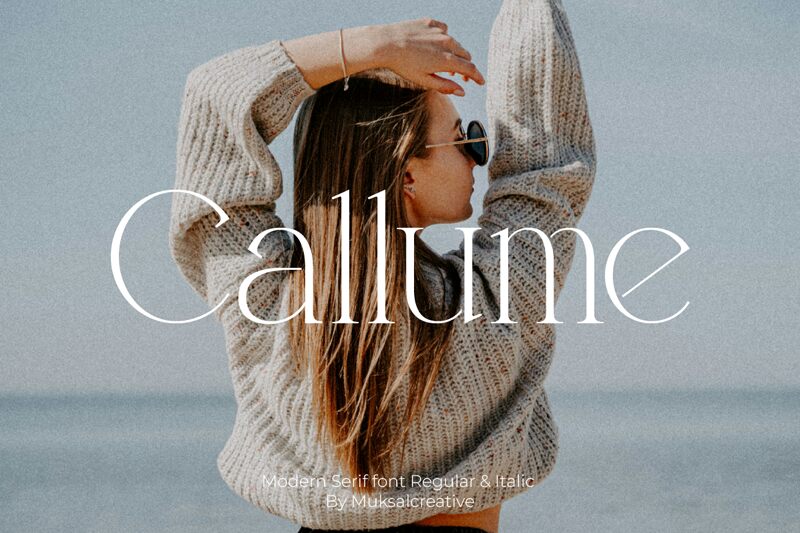
Callume font is a free serif typeface designed by Muskal Creative combining sophistication and elegance. The characters are distinguished by their contemporary design which is stylized with class resembling the grace of thin typography. The clean modern typeface has deposits of elegance distributed in each glyph shape like the fine hairlines of glyphs that come together to form different letters and words.
Callume is perfect for designing brand and trade names destined for mediums where the size will be large and visible to the greater public. Magazines and books, especially those dealing with fashion or food, will also enjoy the beautiful sophistication the font offers. Enjoy working with it in other projects like business cards, magazines, and logotypes for elegant brands and businesses.